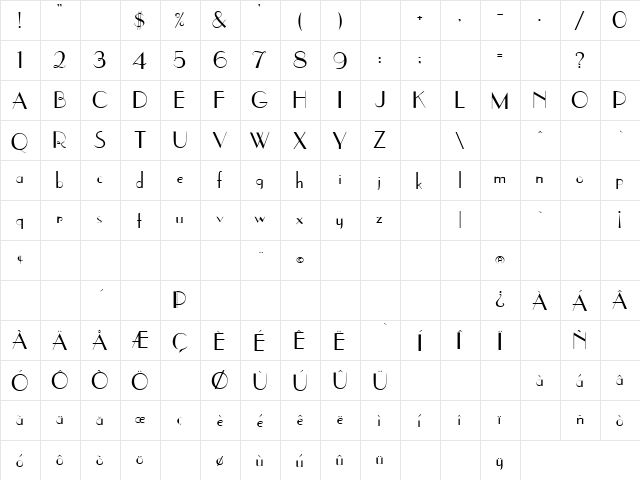
Coke 4 Regular Font Preview
Coke 4 Regular
Design Context for Coke 4 Typeface
Coke 4 is a composed and adaptable typeface that performs quietly and consistently across a wide range of design contexts.